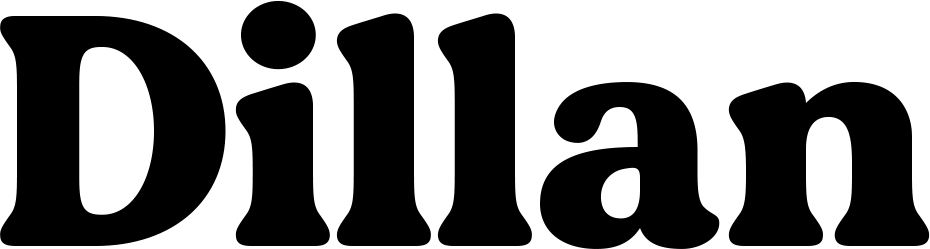
Made Dillan Font
MADE Dillan is a soft serif typeface.
MADE Dillan will perfect for many project: fashion, magazines, logo, branding, photography, invitations, quotes, blog header, poster, advertisements, postcard, etc.